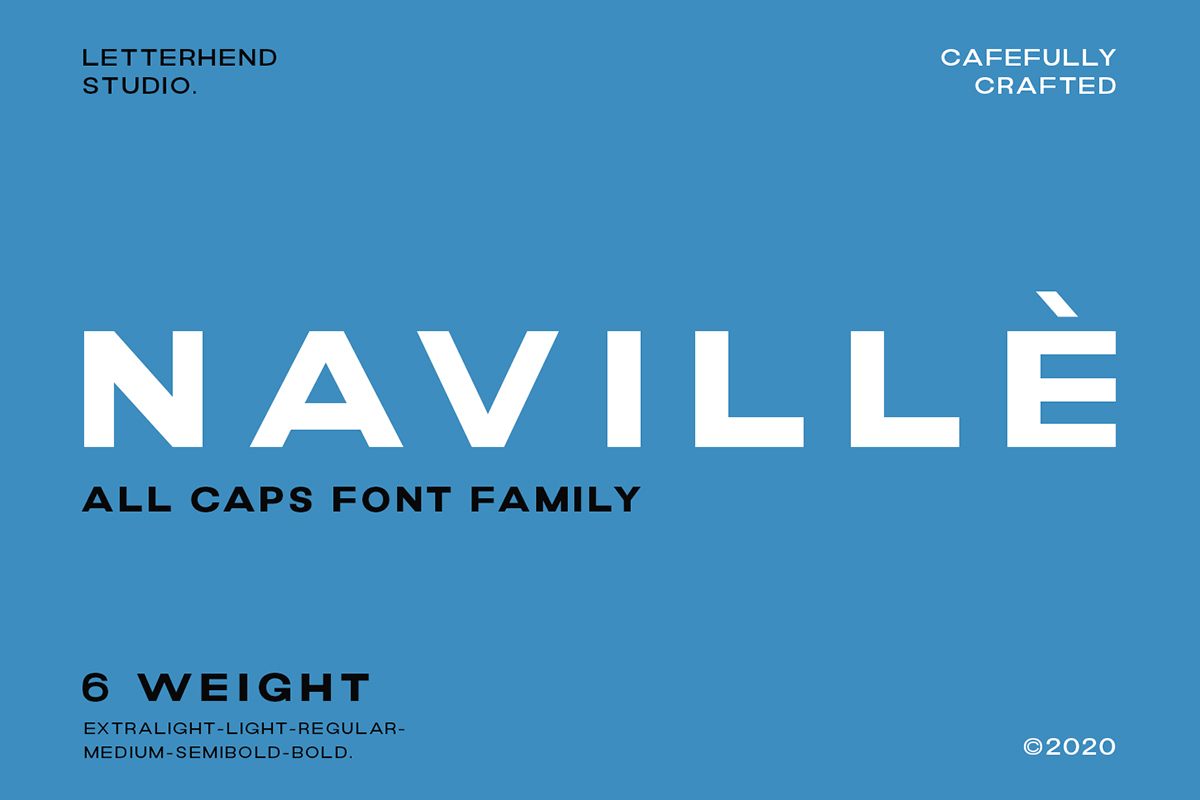
Naville Font
Naville Font is widely used in nautical-themed branding, maritime museum displays, sailing club communications, coastal resort signage, yacht club materials, marine equipment packaging, harbor restaurant menus, and oceanic adventure tourism promotions.
Naville Font is an exciting typeface that navigates the waters of design with its maritime elegance and seafaring character. This font embodies oceanic adventure, coastal sophistication, and nautical heritage, making it perfect for brands that want to convey maritime authenticity, sailing spirit, and coastal lifestyle in their ocean-inspired visual communications.
The Naville Font family consists of Regular, Bold, Light, Italic, Maritime, Coastal, Condensed, and Nautical variants. This oceanic collection provides designers with multiple expressions of maritime authenticity to match different seafaring themes and coastal lifestyle applications.
Naville Font Free Download offers exceptional nautical appeal for designers working with maritime and coastal brands. The font's seafaring character and oceanic styling create an immediate sense of maritime heritage and coastal sophistication. This typeface excels in projects where nautical tradition, oceanic adventure, and coastal elegance must inspire audiences who appreciate maritime culture and seafaring excellence.
The distinctive maritime heritage of Naville Font lies in its ability to capture the timeless appeal of nautical tradition and the adventurous spirit of oceanic exploration through carefully crafted letterforms that seem to flow with tidal rhythm. Each character maintains the sturdy construction and elegant proportions that reflect centuries of maritime craftsmanship and seafaring tradition. The font's balanced presence and nautical character create visual waves that capture the essence of coastal living and maritime adventure.
Sailing organizations and coastal businesses choose Naville Font for its power to communicate authentic maritime heritage and oceanic sophistication. The typeface works magnificently in yacht club branding, marine equipment marketing, coastal tourism communications, and nautical lifestyle publications. Its maritime aesthetic appeals to sailing enthusiasts and coastal dwellers who appreciate nautical tradition, oceanic beauty, and the timeless appeal of seafaring culture.
The nautical craftsmanship of Naville Font includes maritime flourishes and coastal variations that enhance the natural elegance of oceanic typography while maintaining the seafaring character essential to nautical communication. These maritime features ensure that text maintains the coastal flow and nautical distinction that defines authentic maritime branding while meeting professional standards for commercial applications in the marine, tourism, and coastal lifestyle industries.